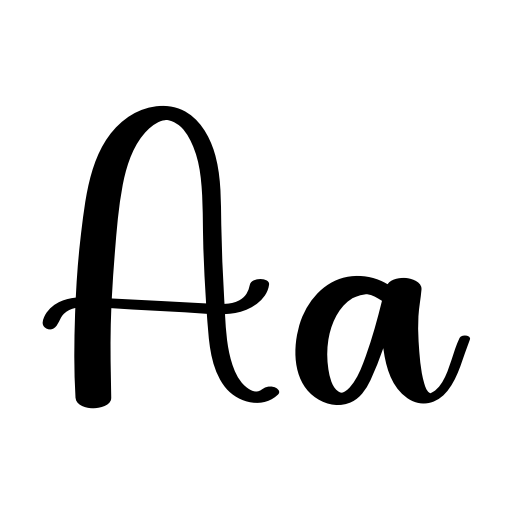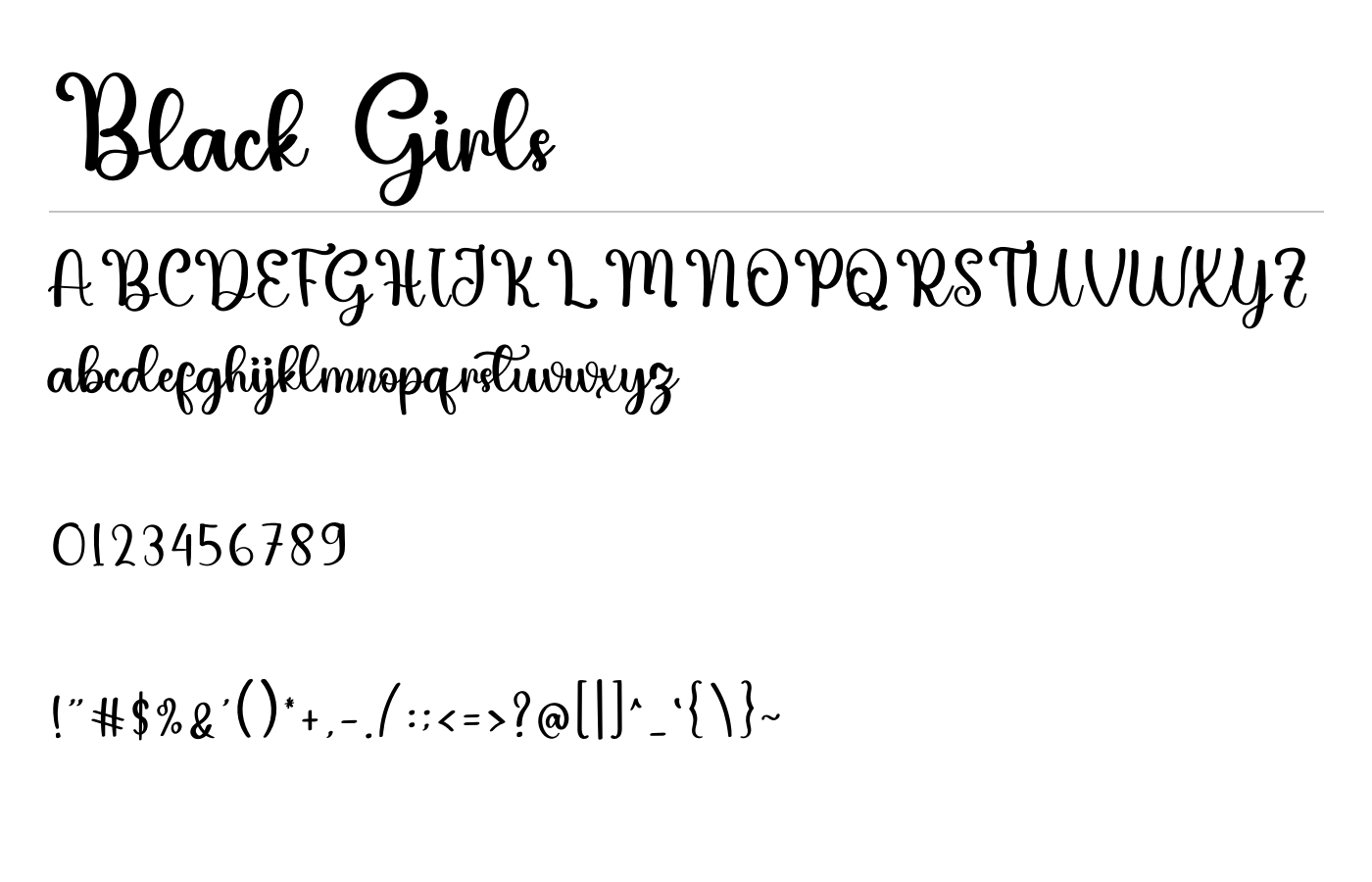
Black Girls Font is a playful and elegant script typeface with a hand-drawn feel, featuring smooth, rounded strokes and lively curls that create a warm and inviting personality. Its moderate weight and consistent contrast make it ideal for creative projects such as branding, invitations, and social media graphics where a friendly yet stylish touch is desired. This font works well in display uses, bringing charm and uniqueness to headlines and logos.
Black Girls Font
About Black Girls Font